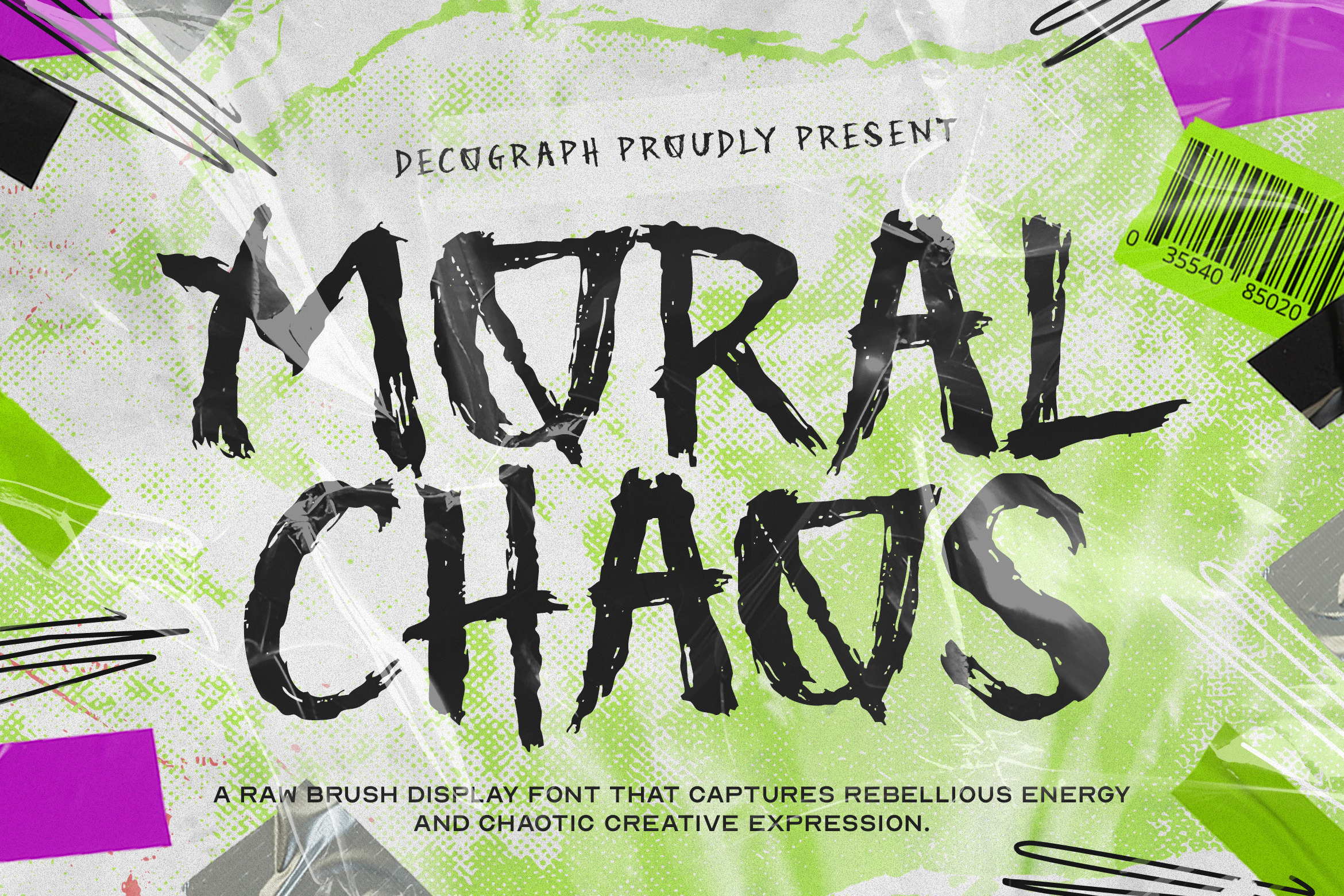
Moral Chaos – Raw Brush Display Font
Moral Chaos is a rebellious raw brush display font that embodies untamed energy through aggressive strokes, distressed textures, and chaotic letterforms that feel bold, loud, and unapologetically expressive. Designed with a gritty handcrafted style, this font delivers a powerful visual punch—perfect for streetwear branding, music covers, posters, edgy campaigns, and creative projects that thrive on disorder and attitude. Its rough brush details and unpredictable rhythm create an authentic underground vibe, making every design feel intense, dynamic, and impossible to ignore.